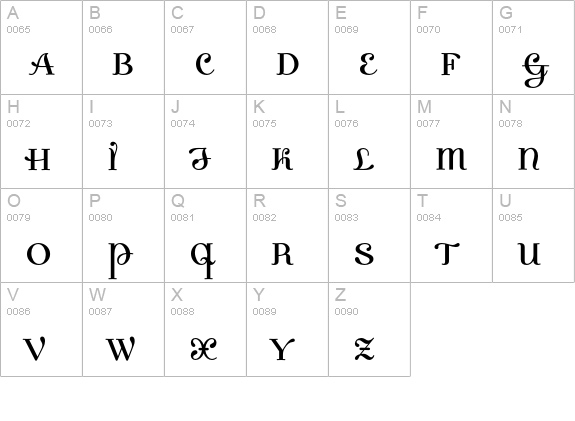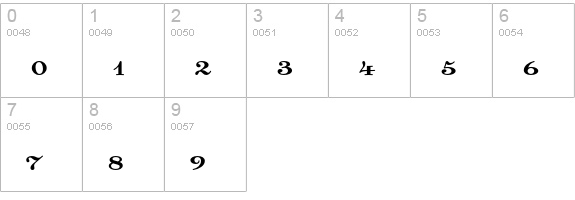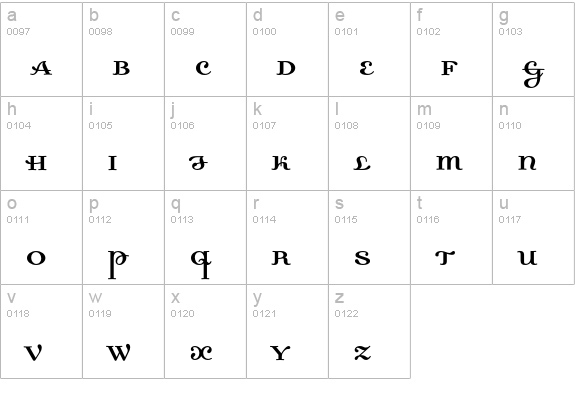
DallianceRomanSmallCaps Font Details
Introducing DallianceRomanSmallCaps, a captivating and elegant font that will elevate your designs to new heights. This exquisite typeface embodies the perfect balance between classic sophistication and modern appeal. With its meticulously crafted small caps and intricate details, DallianceRomanSmallCaps is guaranteed to make a lasting impression. Capture the essence of timeless beauty with this font's graceful curves and delicate strokes. Each letter is meticulously designed to exude a sense of refinement and refinement, making it the perfect choice for luxury brands, high-end invitations, and prestigious events. DallianceRomanSmallCaps effortlessly combines versatility and charm, allowing you to create stunning designs across various applications. Whether you're working on branding, packaging, or editorial projects, this font will add a touch of elegance and class to your work. What's even better is that DallianceRomanSmallCaps is available for free download at FontsMarket.com. Now, you can experience the sheer beauty of this font without any cost. Enhance your design projects with this exceptional typeface and see the impact it will have on your audience. Don't miss out on the opportunity to incorporate DallianceRomanSmallCaps into your creative repertoire. Download this free font today at FontsMarket.com and let your designs shine with sophistication and style.